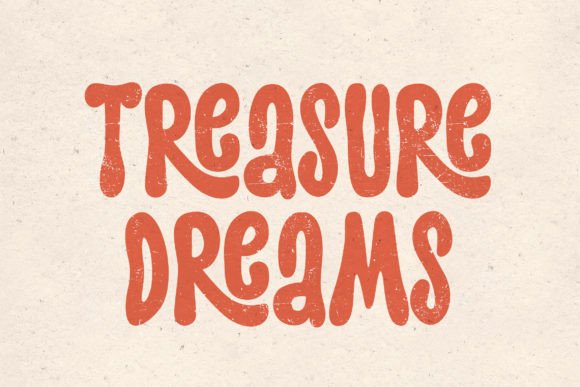
Experience the nostalgia of a bygone era with Treasure Dreams, the retro font with a playful and fun-loving vibe. This display font family, created by etigletters, is perfect for unleashing your creativity and bringing a touch of whimsy to your design projects.
With its bold and eye-catching appearance, Treasure Dreams is the perfect choice for creating stickers, greeting cards, logos, posters, or any project that requires a unique and fun-loving look. It's a font that exudes personality and is sure to capture the attention of your audience.
Treasure Dreams is more than just a font; it's a time machine that transports you back to the golden age of design. Its curvy and playful letterforms capture the essence of retro design, and its bold and distinctive style is sure to make your work stand out from the crowd.
Crafted with meticulous attention to detail, Treasure Dreams is a versatile font family that comes in a range of weights and styles. This means you can mix and match different styles to create the perfect look for your project.
So whether you're a designer, artist, or just someone who loves to create, Treasure Dreams is the font for you. With its playful, retro vibe, this font is sure to inspire your creativity and help you bring your ideas to life. Download it today and start creating!